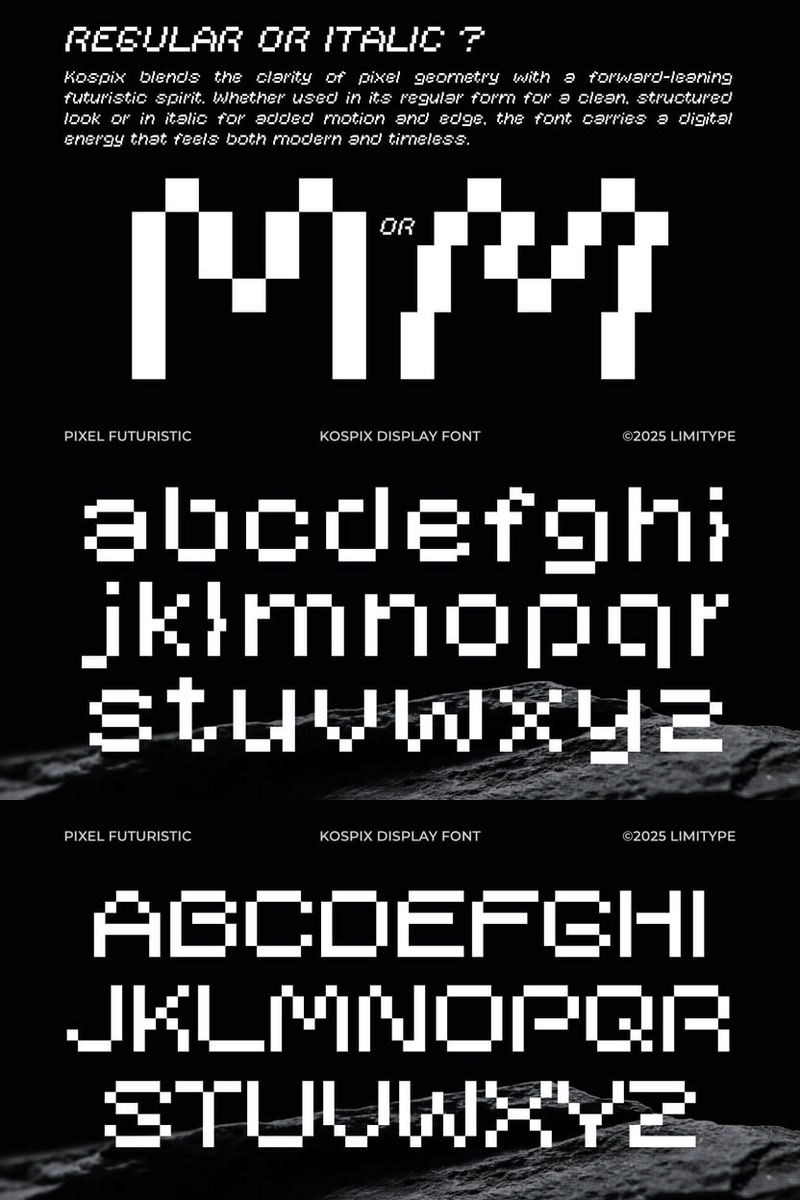
How Kospix Helps UX/UI Designers Weave Timeless Elegance into Unforgettable Logo Designs
As a UX/UI designer, you're not just crafting interfaces; you're building experiences, shaping perceptions, and creating brands that need to resonate long after the latest trend has faded. You understand the challenge of finding that perfect balance – a design that feels both fresh and enduring, impactful and inviting. This is where Kospix steps into your creative toolkit.
Kospix isn't merely a typeface; it’s a quiet conversation between classic grace and modern clarity. It possesses an inherent warmth, a gentle curve here, a confident stroke there, that whispers 'established' rather than shouts 'new.' Imagine the comforting familiarity of a well-loved, leather-bound book, updated with the sleek precision demanded by today's digital interfaces. Kospix embodies that harmonious blend.
We know the constant pursuit of fleeting design trends can be exhausting. You strive to create digital products and brand identities that stand the test of time, fostering trust and connection. Kospix offers a clear solution: it imbues your designs with an authentic sense of enduring quality, allowing you to build brands that feel inherently trustworthy and sophisticated from the very first interaction.
The Kospix Advantage for UX/UI Designers:
- For Unforgettable Brand Building: Kospix helps forge brand identities that are both memorable and deeply resonant. Picture a startup aiming for a legacy, or an established company refreshing its look without losing its soul. For a logo design, consider how Kospix for a high-end ethical fashion brand immediately conveys integrity and timeless style, making the emblem feel both modern and historically significant. Or imagine it forming the core of a fintech app's wordmark, subtly suggesting reliability and forward-thinking heritage.
- Subtle Visual Impact: Kospix commands attention with its understated authority, ensuring your message is not just seen, but felt. It invites engagement without overwhelming the user.
- Exceptional Readability: Despite its elegant flair, Kospix maintains impressive clarity. Its thoughtful character forms ensure seamless user interaction, making it ideal for everything from interface labels to extensive body copy in digital magazines.
- Versatility in Application: From elegant headlines on a luxury e-commerce site to informative body text in a corporate report, Kospix adapts beautifully. It maintains its distinctive character across various applications, unifying your brand's voice wherever it appears.
- Emotional Connection: This typeface evokes a sense of calm, professionalism, and thoughtful craftsmanship. It draws users into an experience that feels genuinely considered, fostering a deeper, more sophisticated connection with your brand.
Imagine crafting a brand identity for an artisanal coffee roaster – Kospix provides the perfect blend of warmth and sophisticated heritage, making the brand feel instantly established and trustworthy in its logo design. Or consider its use within a high-end app for financial planning; headlines in Kospix exude confidence and stability, while body text remains effortlessly legible, guiding users through complex information with ease. It's equally at home creating an inviting landing page for a sustainable design studio or adding a touch of classic charm to a digital editorial layout, ensuring your message always carries an air of lasting distinction.
Kospix: Design with Enduring Grace.